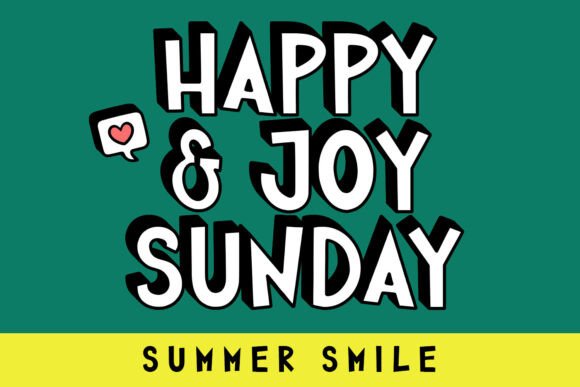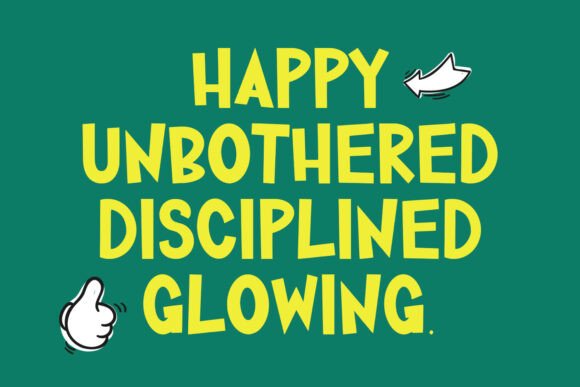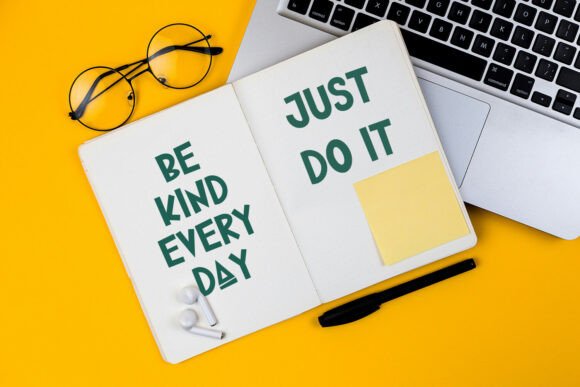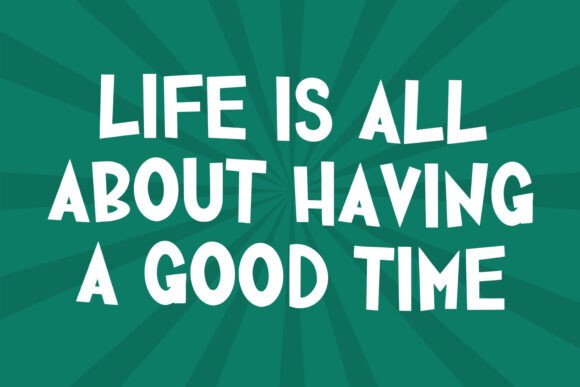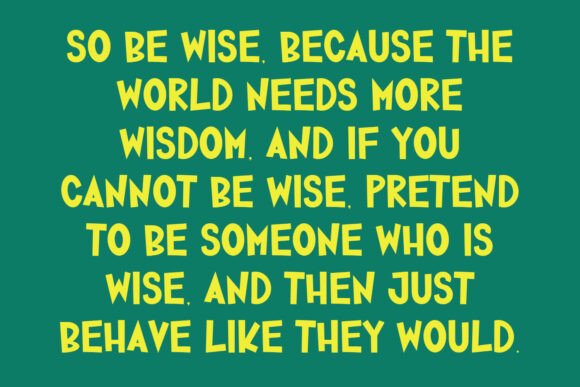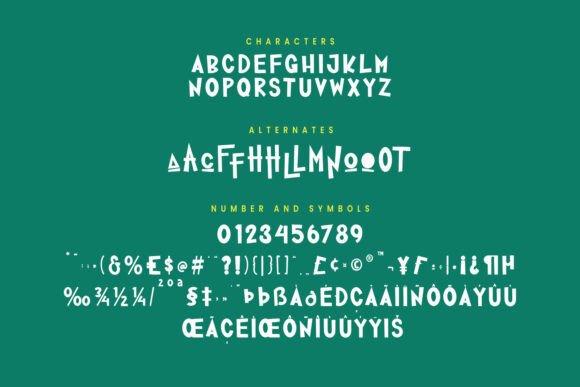
Introduction to Poonfat Font
Have you ever stared at a blank page, struggling to find the perfect font for your creative project? You’ve tried numerous options, but nothing seems to capture the playful vibe you’re going for. Well, let me tell you a secret: I’ve been there too! But all that changed when I discovered the Poonfat Font. This comic-style font is a game-changer for designers who want to add a dash of fun and whimsy to their work.
With its bold, thick letters, the Poonfat Font is perfect for cartoons, comics, and any project that needs a lighthearted and cheerful feel. Whether you’re a seasoned designer or just starting out, this font is a valuable resource that’s sure to elevate your creative game. And the best part? It’s available for a free download, making it a high-quality design resource that won’t break the bank.
Key Features of Poonfat Font
- Features a transparent background, making it easy to use in various design applications.
- Comes in a range of sizes and resolutions, including 300 DPI and 600 DPI options.
- Designed to be highly legible, even at small font sizes, making it perfect for use in digital design.
- Can be easily customized using font editing software, allowing designers to tailor the font to their specific needs.
Honest Review: Poonfat Font
I recently had the chance to work with the Poonfat Font on a creative project and I’m excited to share my honest review. As a designer, I appreciate a good design resource that can elevate my work.
Here are some things that worked well for me: ✨ High-quality typography is always a must, and Poonfat Font delivers with its crisp, clean lines and well-balanced design. The font is available for free download, which is a huge plus for designers on a budget. I also appreciate that the font has a transparent background, making it easy to layer with other design elements.
However, I did encounter a few limitations: ⚠️ While the font is high-quality, it’s not without its quirks. In certain font sizes, the lettering can appear slightly uneven, which may be distracting for some designers. Additionally, the font selection is relatively limited, with only a few weights and styles to choose from.
Overall, I’m impressed with Poonfat Font, but I do wish it had a bit more flexibility and options. If you’re looking for a free design resource with high-quality typography, Poonfat Font is definitely worth checking out.
- High-quality typography
- Relatively limited font selection
- Slightly uneven lettering at certain font sizes
How to Use Poonfat Font
Poonfat Font is a high-quality design resource ideal for creative projects that require a unique touch. With a transparent background, this font can be easily integrated into various design platforms.
Getting the Most Out of Poonfat Font
Experiment with different font sizes, colors, and combinations to achieve the desired effect in your design project.
Poonfat Font is ideal for creative projects such as:
- Infographics and data visualizations
- Marketing materials and advertisements